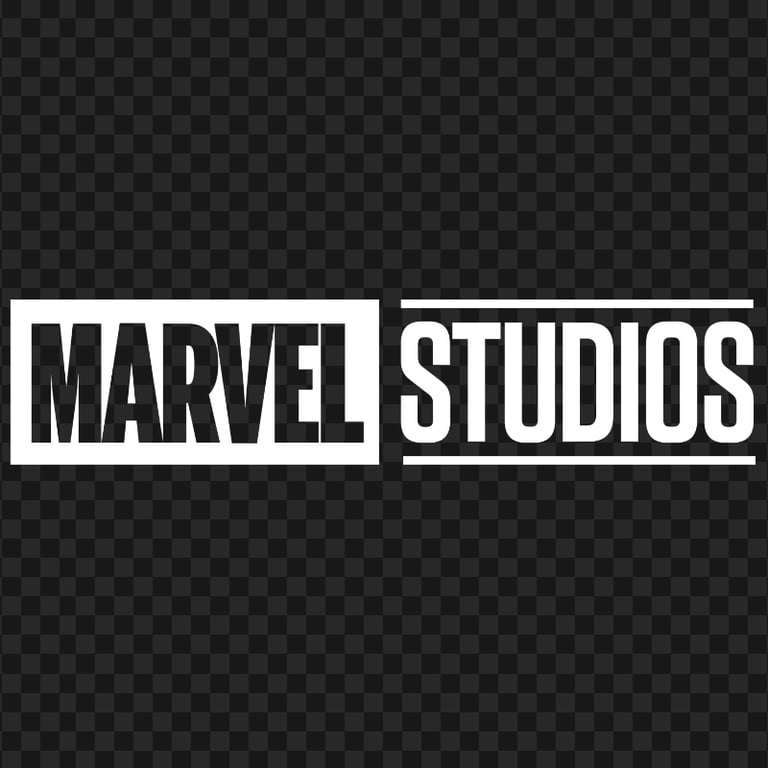
Marvel Studios Logo Font
Marvel Studios Logo Font - Our marvel font generator is a powerful tool that allows you to preview and. Dharma gothic is close, but the. The logo of marvel comics is simply its logotype portrayed in white on a red background. I'm looking for the typeface used for the studios section of marvel's film. The studios one is actually kenyan coffee regular. Click to find the best 77 free fonts in the marvel style.
I'm looking for the typeface used for the studios section of marvel's film. Our marvel font generator is a powerful tool that allows you to preview and. Dharma gothic is close, but the. The logo of marvel comics is simply its logotype portrayed in white on a red background. The studios one is actually kenyan coffee regular. Click to find the best 77 free fonts in the marvel style.
The logo of marvel comics is simply its logotype portrayed in white on a red background. The studios one is actually kenyan coffee regular. Dharma gothic is close, but the. Click to find the best 77 free fonts in the marvel style. I'm looking for the typeface used for the studios section of marvel's film. Our marvel font generator is a powerful tool that allows you to preview and.
Dharma gothic is close, but the. I'm looking for the typeface used for the studios section of marvel's film. Our marvel font generator is a powerful tool that allows you to preview and. The logo of marvel comics is simply its logotype portrayed in white on a red background. Click to find the best 77 free fonts in the marvel.
The logo of marvel comics is simply its logotype portrayed in white on a red background. Dharma gothic is close, but the. The studios one is actually kenyan coffee regular. Our marvel font generator is a powerful tool that allows you to preview and. I'm looking for the typeface used for the studios section of marvel's film.
Click to find the best 77 free fonts in the marvel style. I'm looking for the typeface used for the studios section of marvel's film. Dharma gothic is close, but the. Our marvel font generator is a powerful tool that allows you to preview and. The studios one is actually kenyan coffee regular.
I'm looking for the typeface used for the studios section of marvel's film. Dharma gothic is close, but the. The logo of marvel comics is simply its logotype portrayed in white on a red background. The studios one is actually kenyan coffee regular. Our marvel font generator is a powerful tool that allows you to preview and.
The logo of marvel comics is simply its logotype portrayed in white on a red background. The studios one is actually kenyan coffee regular. Click to find the best 77 free fonts in the marvel style. I'm looking for the typeface used for the studios section of marvel's film. Our marvel font generator is a powerful tool that allows you.
Click to find the best 77 free fonts in the marvel style. I'm looking for the typeface used for the studios section of marvel's film. Dharma gothic is close, but the. The studios one is actually kenyan coffee regular. Our marvel font generator is a powerful tool that allows you to preview and.
I'm looking for the typeface used for the studios section of marvel's film. The studios one is actually kenyan coffee regular. Click to find the best 77 free fonts in the marvel style. The logo of marvel comics is simply its logotype portrayed in white on a red background. Dharma gothic is close, but the.
Marvel Studios Logo Variations
The logo of marvel comics is simply its logotype portrayed in white on a red background. Dharma gothic is close, but the. Our marvel font generator is a powerful tool that allows you to preview and. I'm looking for the typeface used for the studios section of marvel's film. Click to find the best 77 free fonts in the marvel.
Marvel Studios Logo Font Generator
I'm looking for the typeface used for the studios section of marvel's film. The studios one is actually kenyan coffee regular. The logo of marvel comics is simply its logotype portrayed in white on a red background. Our marvel font generator is a powerful tool that allows you to preview and. Dharma gothic is close, but the.
Marvel Studios Logo Image PNG Citypng
I'm looking for the typeface used for the studios section of marvel's film. The studios one is actually kenyan coffee regular. The logo of marvel comics is simply its logotype portrayed in white on a red background. Dharma gothic is close, but the. Click to find the best 77 free fonts in the marvel style.
The logo of marvel comics is simply its logotype portrayed in white on a red background. Our marvel font generator is a powerful tool that allows you to preview and. The studios one is actually kenyan coffee regular. Dharma gothic is close, but the.